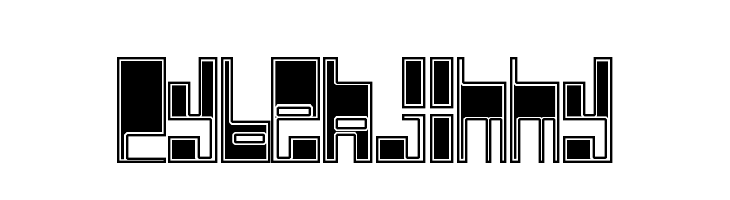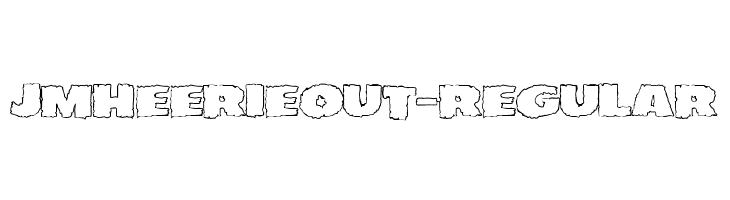
Illustrative font with hand-drawn teddy bear characters.
A playful, decorative font with leaf-like embellishments inside bold, rounded characters.
A bold, futuristic 3D font with sharp angles and a shadow effect.
A playful, winter-themed font with snowflakes and stars.
A graceful, calligraphic script font.
A decorative, geometric font inspired by the De Stijl art movement.
A playful, handwritten font with whimsical doodles and a casual style.
A geometric, angular font with a futuristic and technical style.
A bold, distressed font with a hand-drawn, rugged appearance.
设计师偏爱 Valu Old Caps, KR Adorable Teddies, Olive Branch, Omni Girl 3D and Winter * Yeti Regular,因为其造型干净、适用范围广—— 从品牌识别到落地页、海报都能胜任。